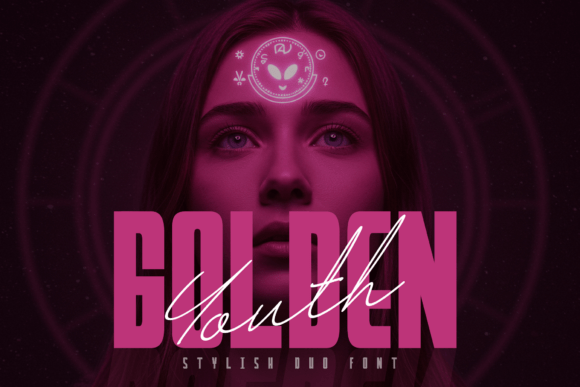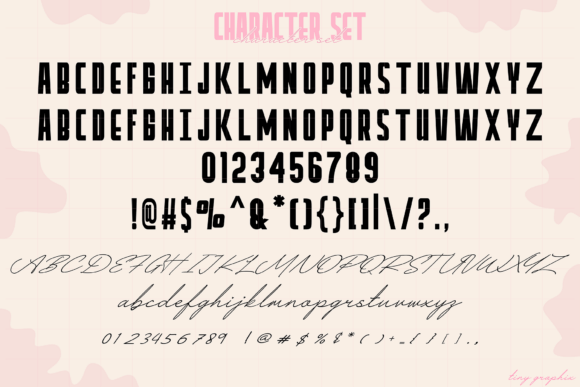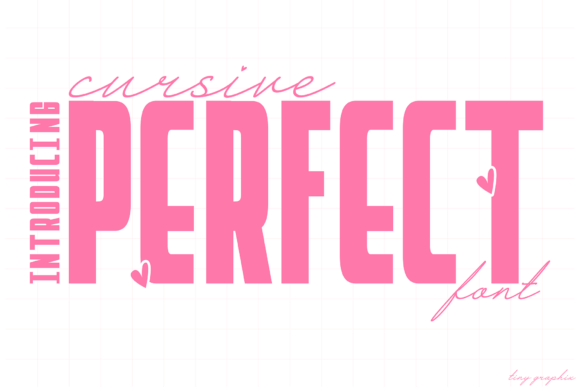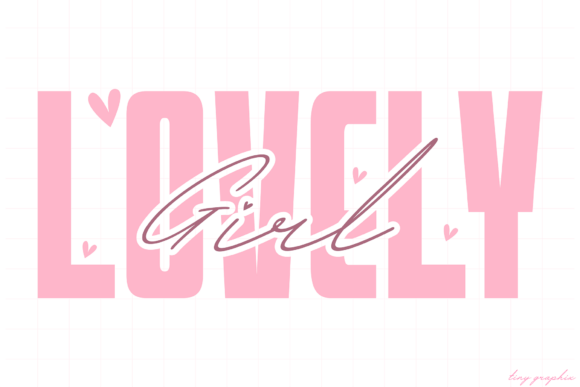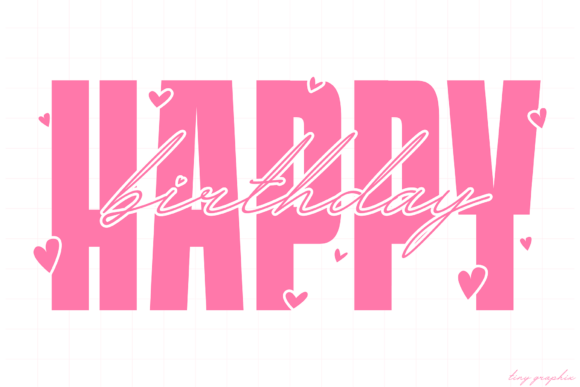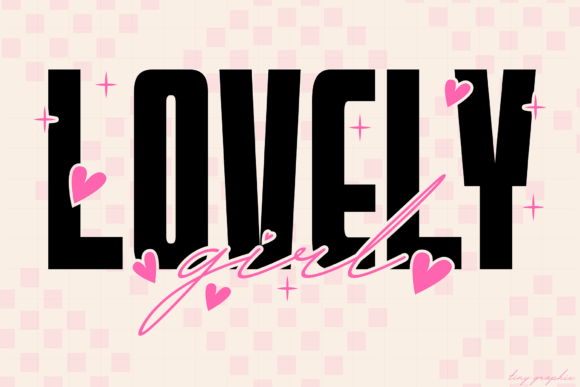
Introduction to Perfect Cursive Font Font
Fonts play a crucial role in design, and the Perfect Cursive Font font is a typeface that brings both character and versatility to any project. Whether you’re working on a branding project, a website, or a print design, the Perfect Cursive Font font offers a unique style that can elevate your work.
Perfect Cursive and Perfect Duo β A Stylish Duo Font with Bold Attitude and Elegant Flair Introducing Perfect Cursive β Perfect Duo, a striking font duo that blends bold modernity with delicate handwritten charm.
Crafted by Tiny Graphix, this pairing offers a unique mix of strength and softnessβperfect for a wide range of creative projects Perfect Duo a bold, tall uppercase and lowercase style with sharp cuts and geometric flair.
Key Features of Perfect Cursive Font Font
Why Choose Perfect Cursive Font Font?
The Perfect Cursive Font font is more than just a typeface β it’s a design tool that helps you communicate your message with style and clarity. Its unique character set and versatile design make it suitable for a wide range of applications, from elegant invitations to bold headlines.
With its carefully crafted letterforms and balanced proportions, the Perfect Cursive Font font ensures readability and visual appeal across all mediums.
What makes Perfect Cursive Font font special?
The Perfect Cursive Font font stands out with its unique design, exceptional readability, and versatility across various design applications.